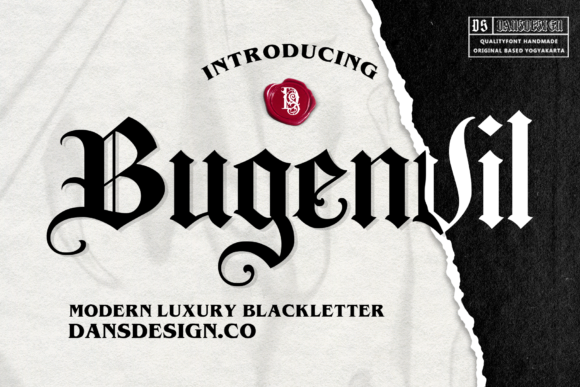
The Quest for the Perfect Font: Discovering Bugenvil Font
I’ll never forget the time I was working on a project for a client who wanted a bold, eye-catching font to match their brand’s edgy personality. I spent hours scouring the internet for the perfect blackletter font, but nothing seemed quite right. That was until I stumbled upon Bugenvil Font, a stunning blackletter font that has since become a staple in my design toolkit.
A First Impression: What Makes Bugenvil Font Special
Bugenvil Font, also known as Empires, is a distinct, highly detailed, and chic blackletter font that’s sure to elevate any design project. One of its standout features is its PUA encoding, which makes it easy to access all the glyphs and swashes. This means you can get creative with your designs without having to worry about complicated font management.
What I Love About Bugenvil Font
- ✨ Highly detailed and intricate design that’s perfect for making a statement
- 💻 Works beautifully on both digital and print platforms
- 🎨 Versatile and can be used for a wide range of design projects, from logos to posters
While Bugenvil Font is an amazing font, there are a few things to keep in mind. For example, ⚠️ some of the swashes and glyphs can be a bit finicky to access, especially if you’re new to using OpenType features. Additionally, 🤔 the font may not work as well with very short texts or headings, as its intricate design can get lost at smaller sizes.
Bugenvil Font was inspired by the beauty of medieval calligraphy and the intricate details of Gothic architecture. Its designer wanted to create a font that would evoke the sense of grandeur and luxury, while still being highly legible and versatile. The result is a font that’s both elegant and bold, perfect for making a statement in any design project.
Q: Is Bugenvil Font suitable for body text?
A: While Bugenvil Font is a beautiful font, it’s not necessarily the best choice for body text. Its intricate design and swashes can make it difficult to read at smaller sizes, so it’s best used for headings and titles.